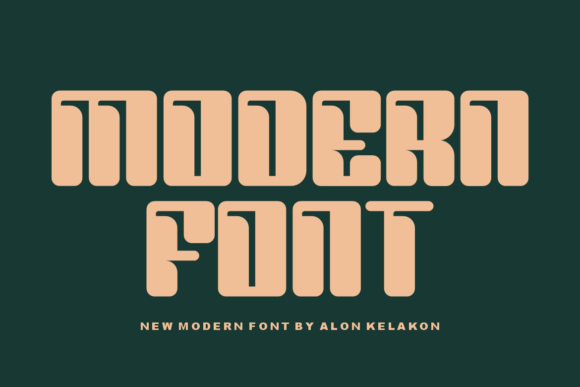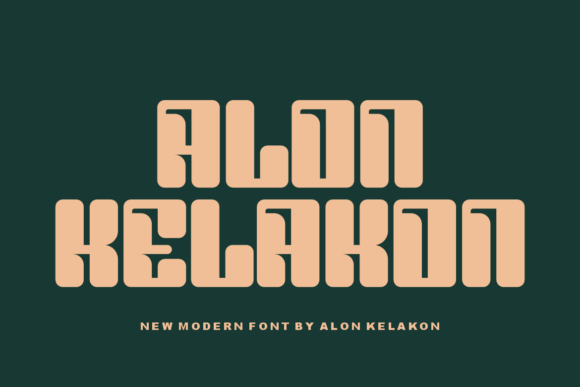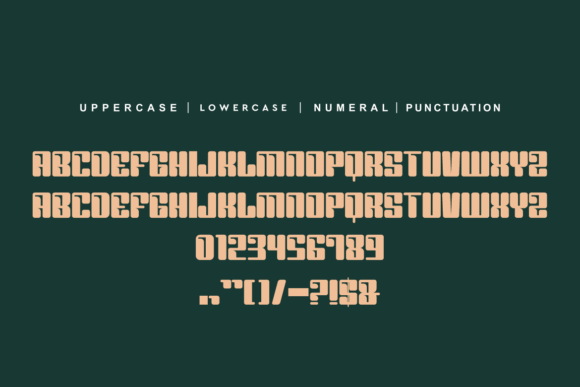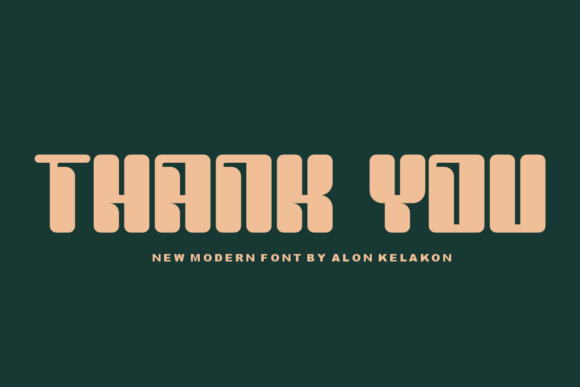
Bulyer Font: Elevate Your Designs with a Cool and Modern Display Font
In the world of typography, a font can make or break a design. With the right font, you can convey a message, evoke emotions, and create a lasting impression. If you’re a designer or crafter looking to take your designs to the next level, look no further than Bulyer Font. This cool and modern display font is an incredible asset to any font library, and we’re excited to dive into its features and benefits.
What is Bulyer Font?
Bulyer Font is a modern display font designed to make a statement. Its sleek lines, unique curves, and bold presence make it perfect for a wide range of design projects, from branding and advertising to packaging and digital media. Whether you’re creating a logo, heading, or title, Bulyer Font is sure to turn heads.
Key Features of Bulyer Font
- Cool and Modern Design: Bulyer Font boasts a fresh and contemporary design that’s sure to give your designs a modern edge.
- Highly Versatile: This font is perfect for a wide range of design projects, from digital media to print materials.
- Elegant and Bold: Bulyer Font’s elegant lines and bold presence make it perfect for creating stunning headings and titles.
- Easy to Read: Despite its bold presence, Bulyer Font is easy to read, making it perfect for use in body text and captions.
Benefits of Using Bulyer Font
So, why should you choose Bulyer Font for your design projects? Here are just a few benefits of using this amazing font:
- Elevate Your Designs: Bulyer Font has the potential to elevate any design, giving it a professional and polished look.
- Stand Out from the Crowd: With its unique design and bold presence, Bulyer Font is sure to make your designs stand out from the crowd.
- Save Time: With Bulyer Font, you can create stunning designs in no time, saving you hours of work and frustration.
- Perfect for Branding: Bulyer Font is perfect for branding projects, helping you to create a consistent and recognizable visual identity.
- Experiment with Different Sizes: Bulyer Font looks great in a range of sizes, from small captions to large headings.
- Play with Colors: Bulyer Font comes in a range of colors, so don’t be afraid to experiment and find the perfect hue for your design.
- Pair it with Other Fonts: Bulyer Font pairs well with a range of other fonts, so try combining it with different fonts to create a unique look.